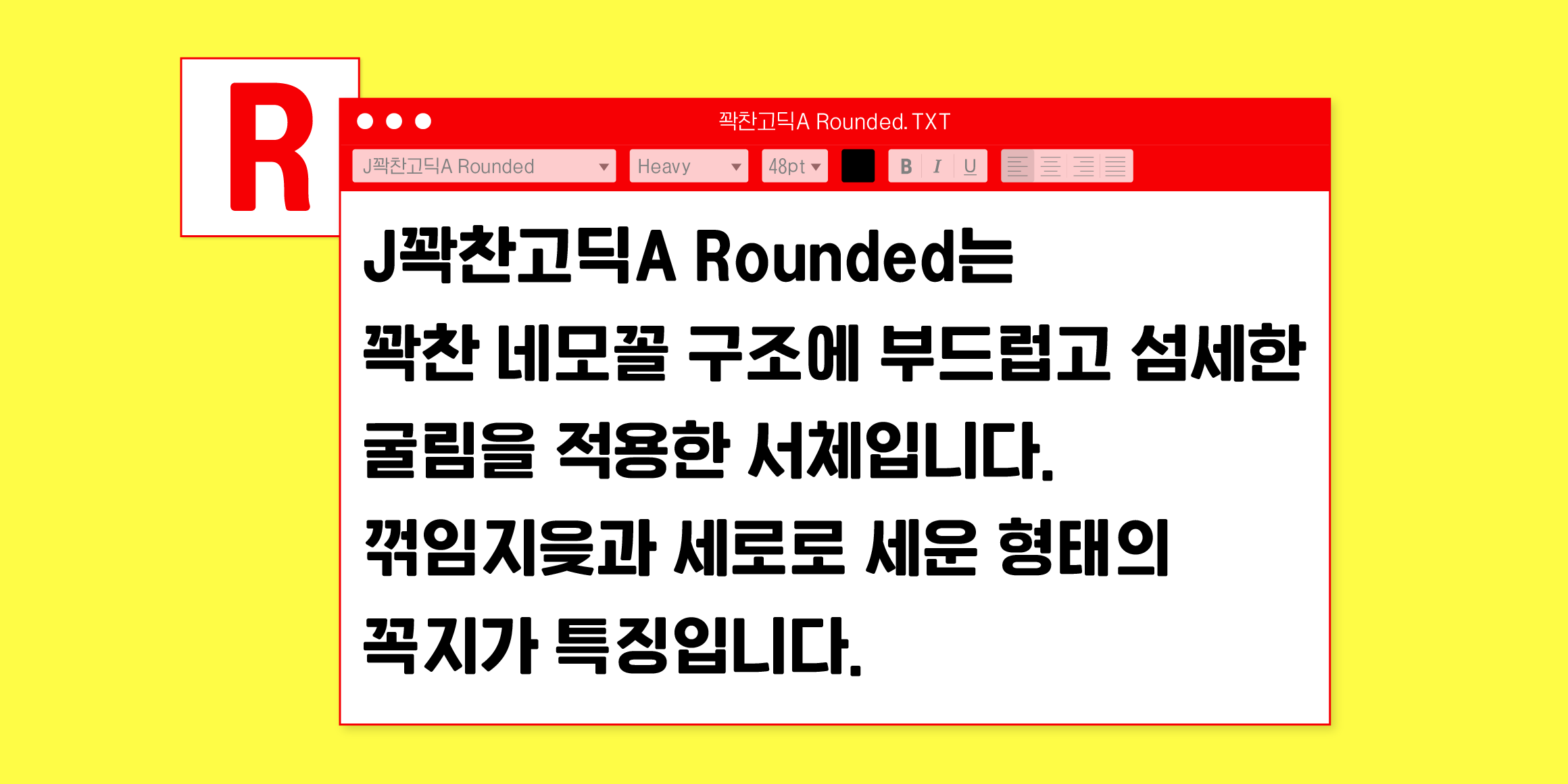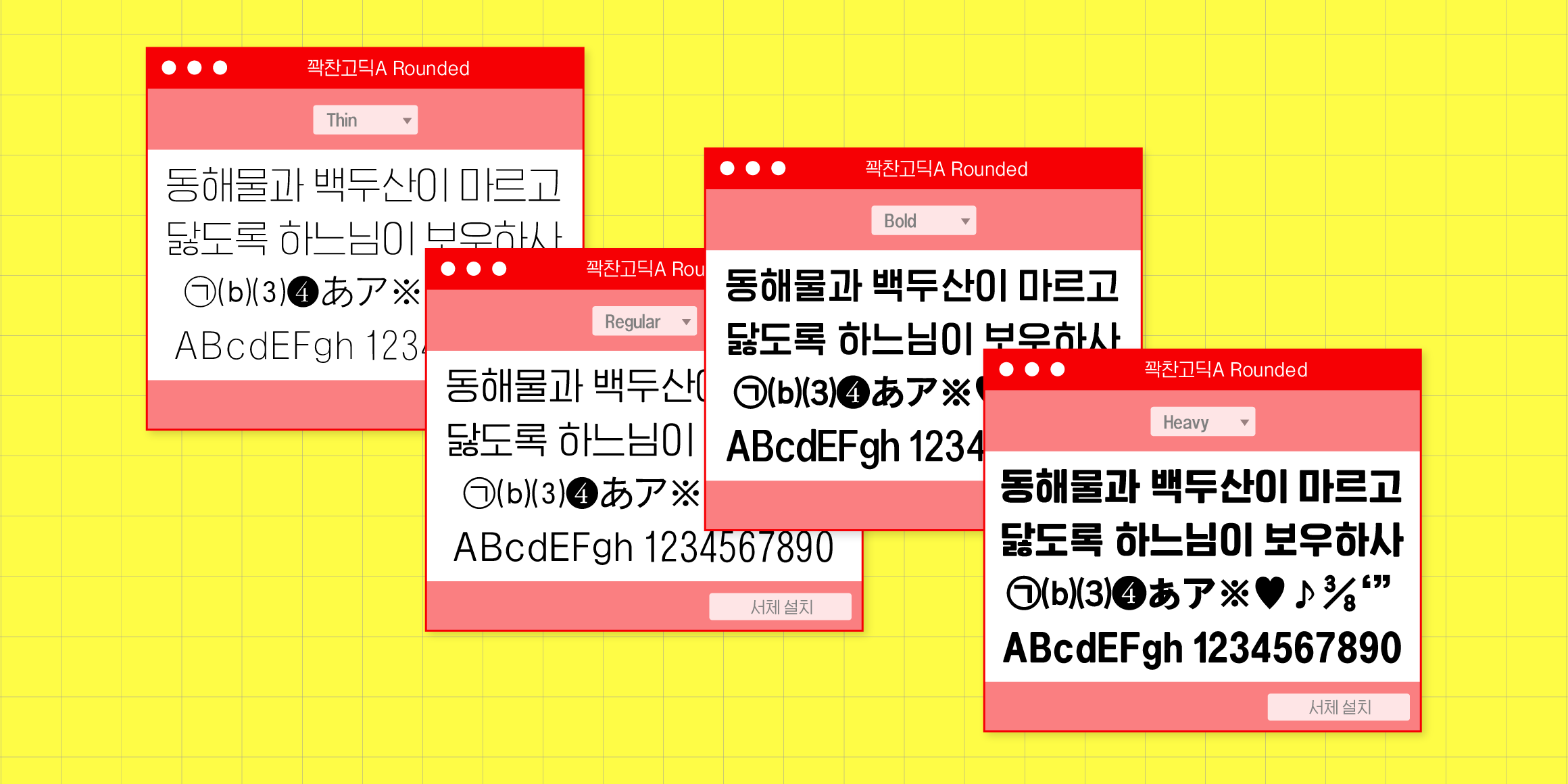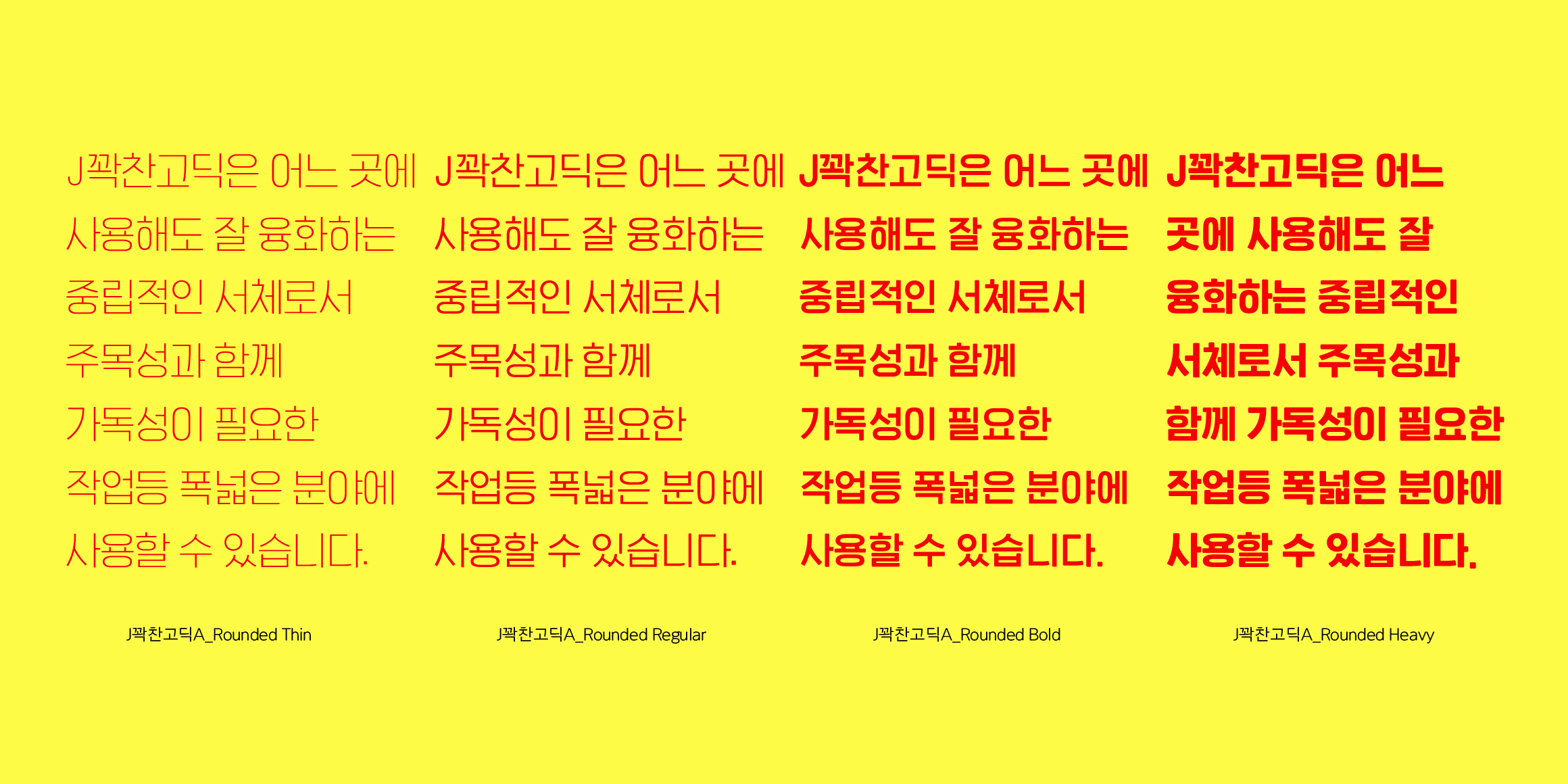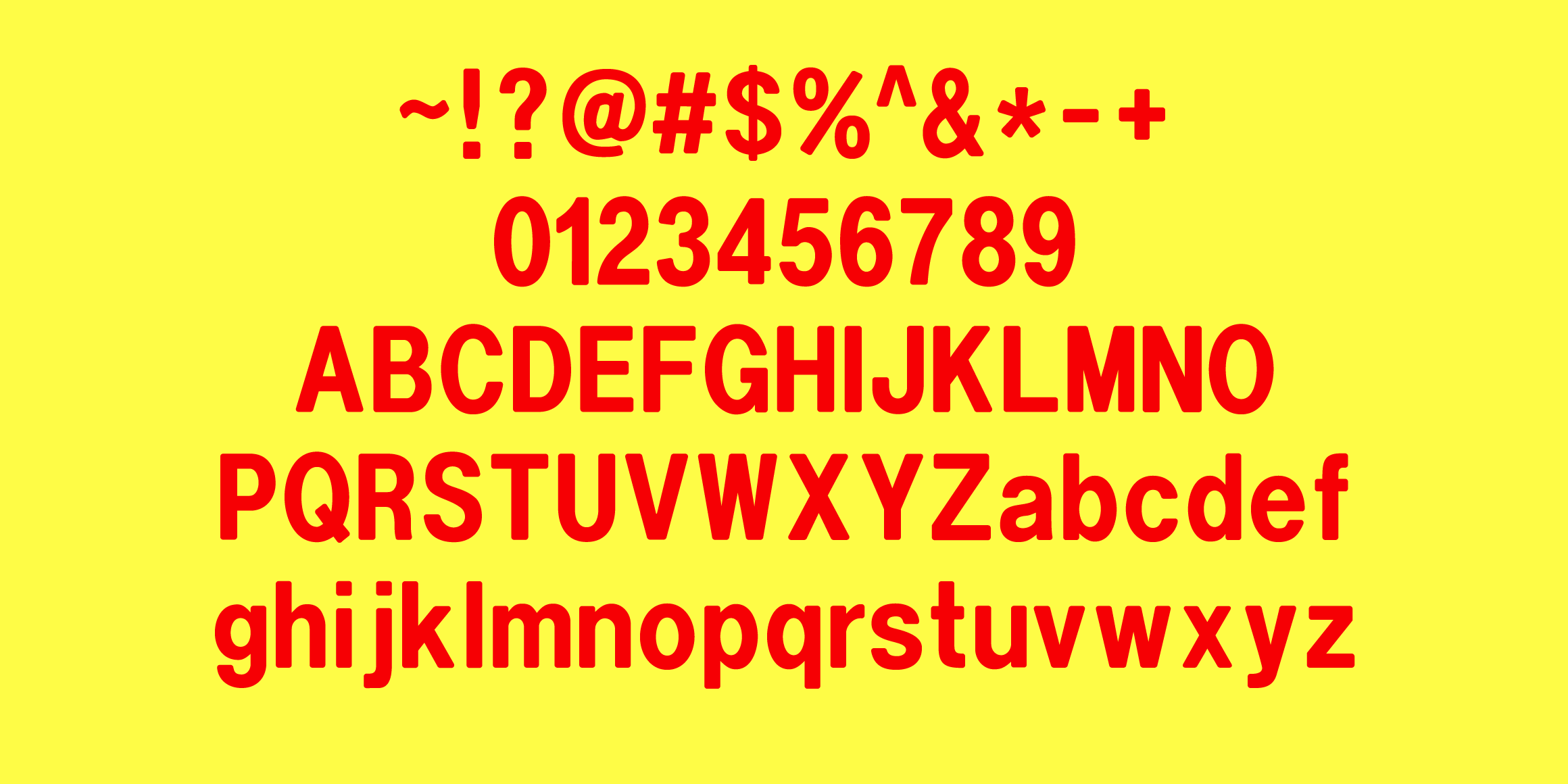
JGgwakchanGothicA_R
Jikjisoft
JGgwakchanGothicA/C Rounded is newly added to the JGgwakchanGothicfamily, and it’s designed based on the design of JGgwakchanGothicA,C. The angular endings of all weights (Thin, Regular, Bold, Heavy) are the same, and a finely adjusted rolling has been applied. It is characterized by delicately processing only the corners rather than the large rolling shape of the existing sanserif fonts. It adds a soft touch to a solid gothic impression.